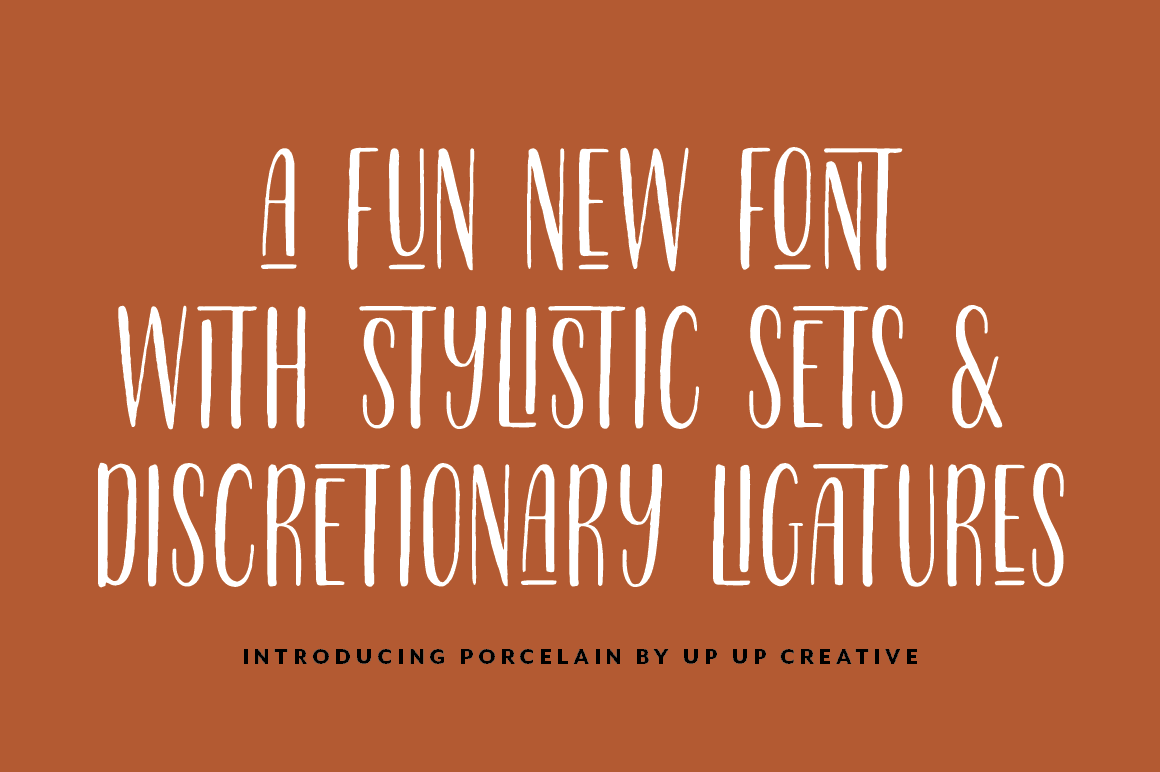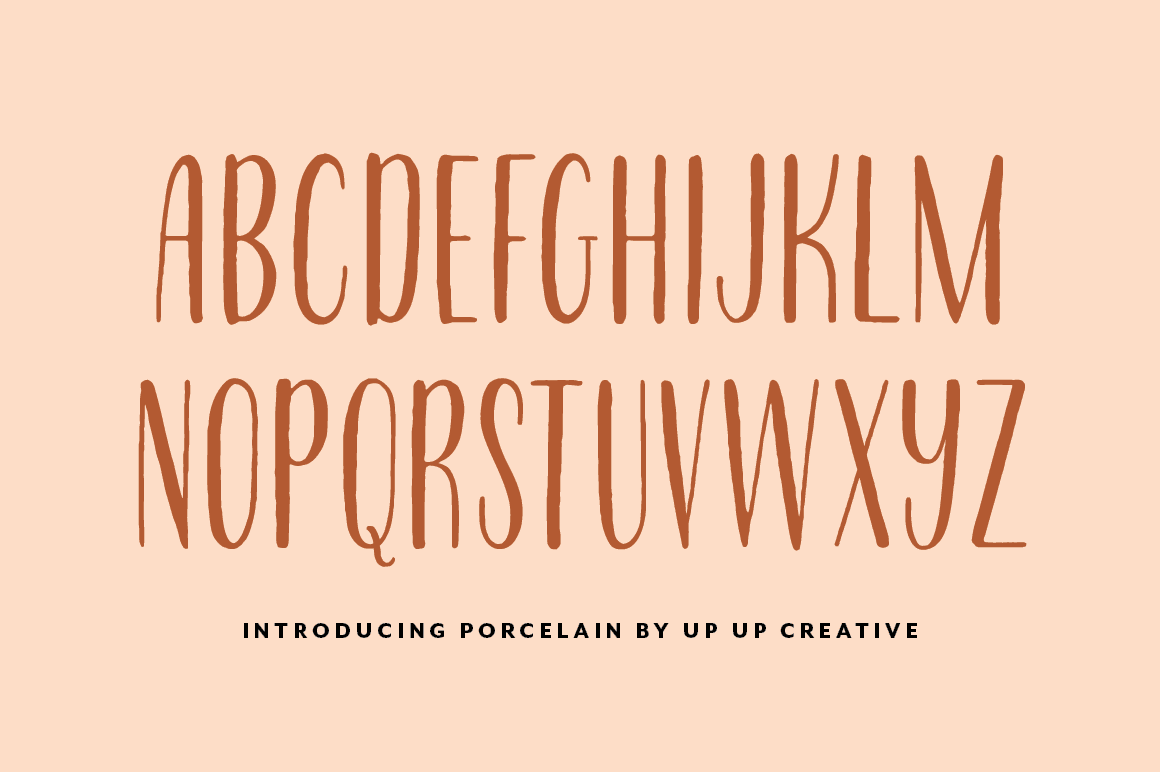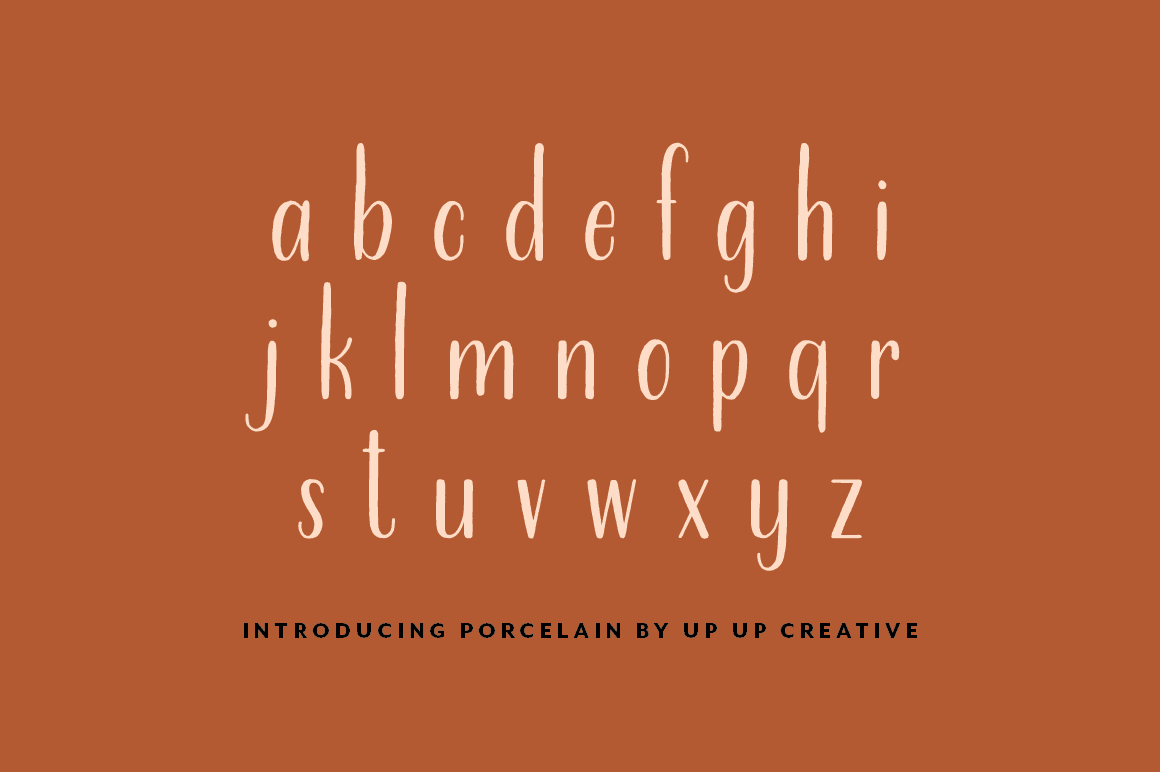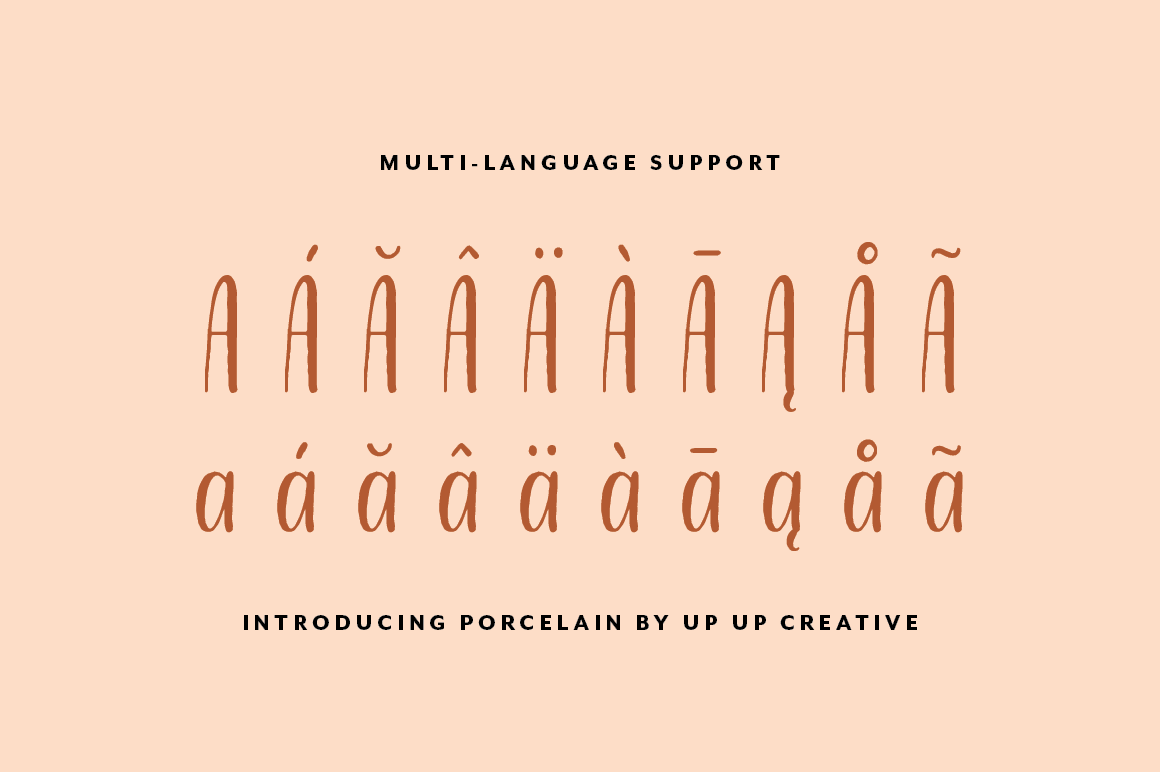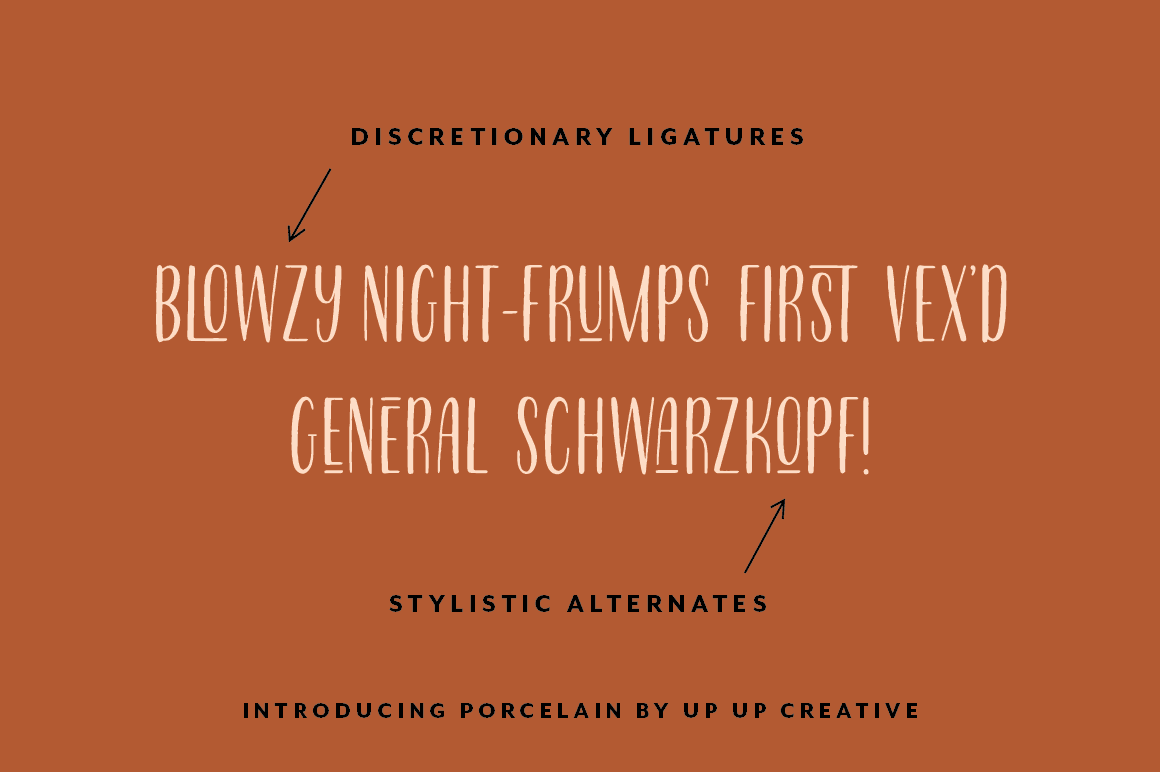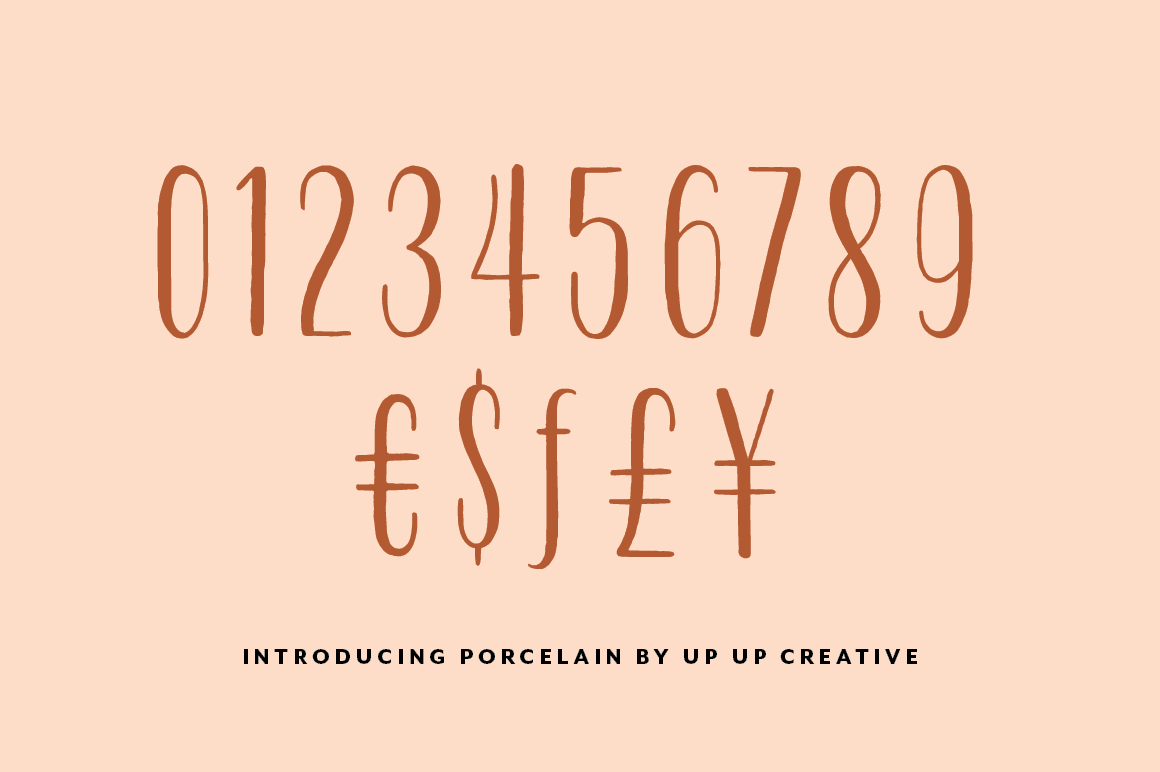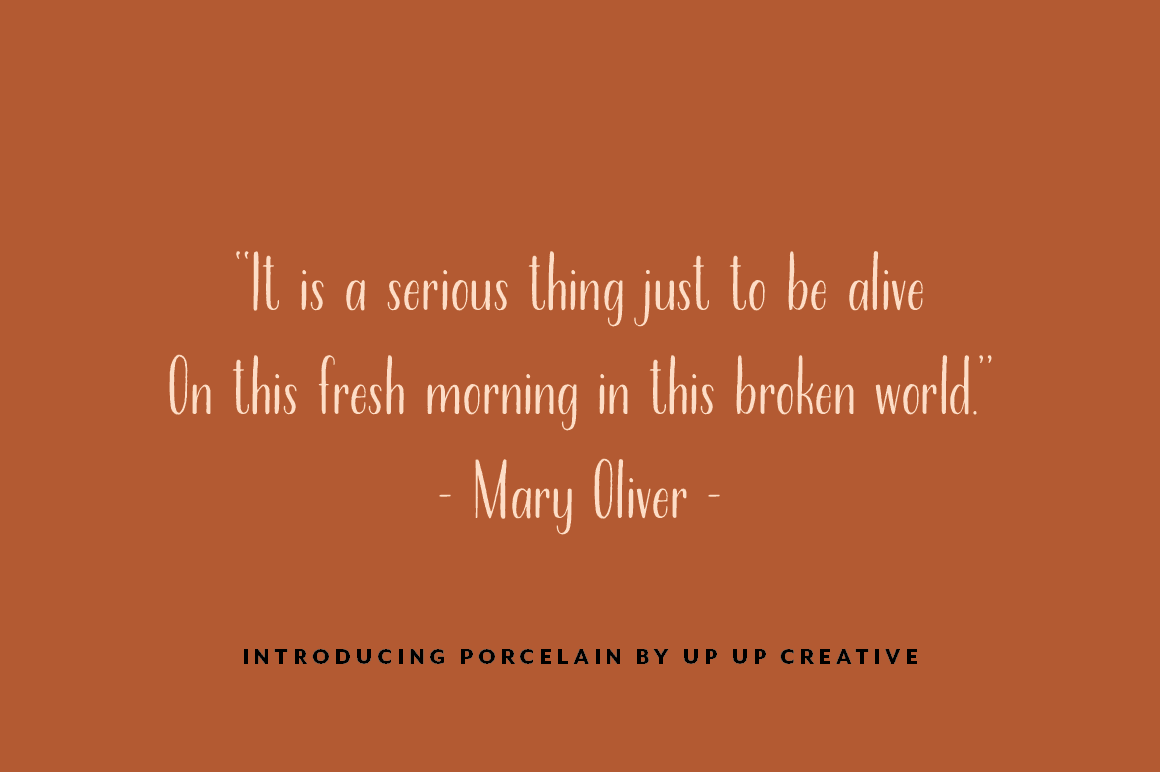
Porcelain Condensed Sans Serif Font
Porcelain is a hand-lettered condensed sans serif font with subtle dip-pen calligraphy texture and some fun OpenType features. Porcelain is perfect for invitations, branding, and editorial design and can be dressed up or down depending on your needs.
Supports 205 Languages
OpenType Features
- discretionary ligatures
- localized forms (multi-language and multi-currency support)
- ordinals and superscripts
- stylistic alternates
- stylistic sets
Includes 31 ligatures
- Released in 2019
- Includes 436 glyphs
- 1 Style, 1 Weight